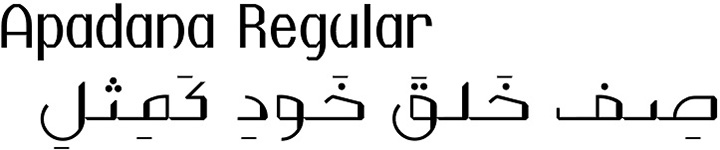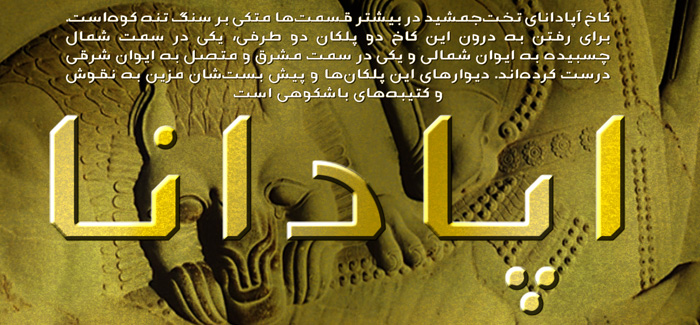
Apadana font
Apadana font is a new creation of Naghi Naghashian.
This typeface offers a fine balance between calligraphic tradition and the contemporary sans serif aesthetic now common in Latin typography.
Apadana design fulfills the following needs:
Explicitly crafted for use in electronic media fulfills the demands of electronic communication. Apadana is not based on any pre-digital typefaces. It is not a revival. Rather, its forms were created with today’s technology in mind.
– Suitability for multiple applications. Gives the widest potential acceptability.
– Extreme legibility not only in small sizes, but also when the type is filtered or skewed, e.g., in Photoshop or Illustrator. Apadana’s simplified forms may be artificial obliqued in InDesign or Illustrator, without any loss in quality for the effected text.
– An attractive typographic image. Apadana was developed for multiple languages and writing conventions. Apadana supports Arabic, Persian, and Urdu. It also includes proportional and tabular numerals for the supported languages.
– The highest degree of geometric clarity and the necessary amount of calligraphic references.
Designers: Naghi Naghashian
Publisher: Naghi Naghachian